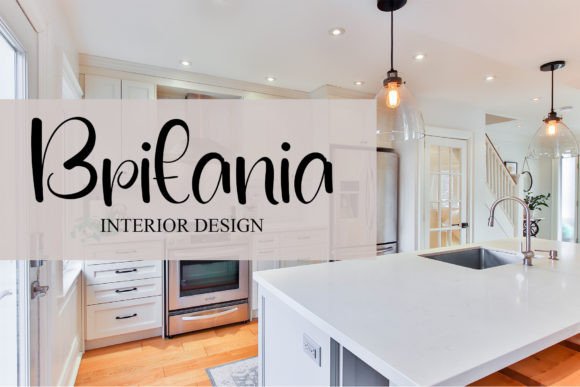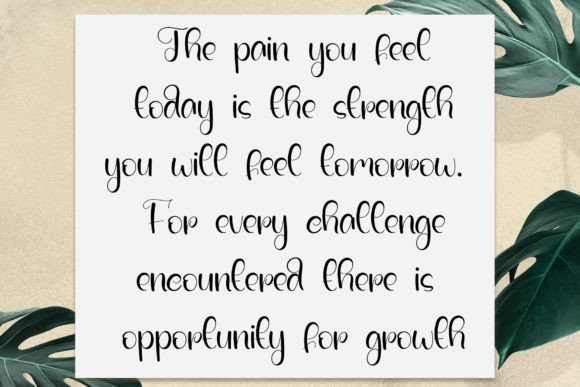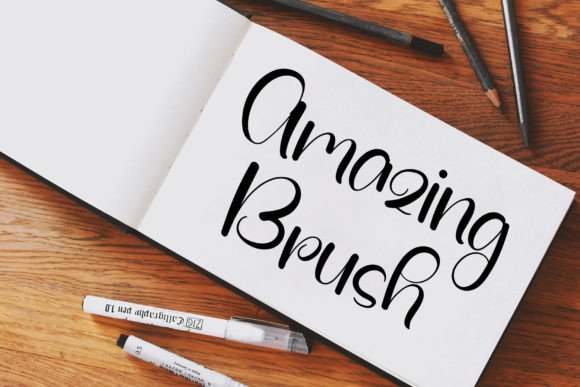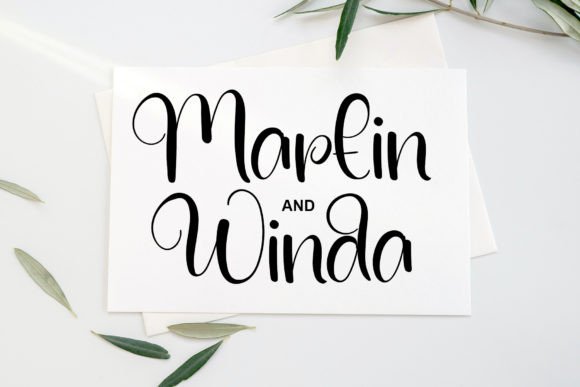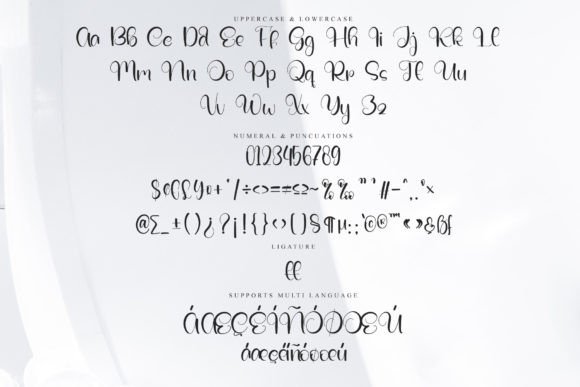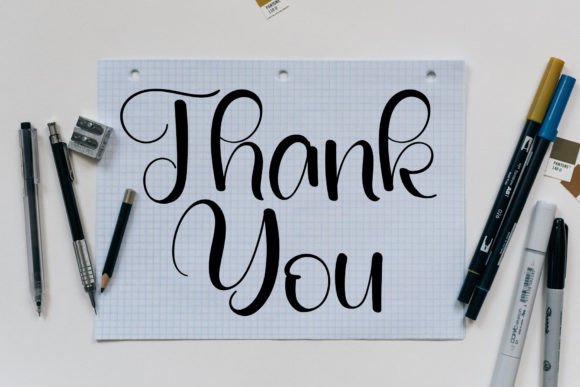
The Perfect Font for Your Creative Projects
Have you ever found yourself staring at a blank page, struggling to bring your creative vision to life? We’ve all been there – the blank page staring back at us, taunting us with its emptiness. But then, it hits you. A spark of inspiration, a dash of creativity, and suddenly, the possibilities are endless.
That’s where the Homework Font comes in – a beautiful display font designed to add a touch of elegance to your magazine layouts, craft projects, and more. With its lovely, handwritten feel, this font is perfect for adding a personal touch to your designs. Whether you’re a seasoned designer or a crafty enthusiast, the Homework Font is a valuable addition to your font library, offering endless possibilities for creative expression.
Key Features of Homework Font
- Font Family: Homework Font is a unique, handwritten font designed for educational purposes, ideal for creating engaging and approachable materials.
- Size and Resolution: Designed to be highly legible at various sizes and resolutions, suitable for use in documents, presentations, and digital displays.
- Unique Characteristics: Features a distinctive, cursive handwriting style with a mix of uppercase and lowercase letters, making it perfect for adding a personal touch to educational materials.
Homework Font Review
I recently had the chance to dive into the “Homework Font” and here’s my honest take on it.✨
- Easy-to-read design: The font is indeed easy on the eyes, making it perfect for long reading sessions or educational materials.
- Classic feel: It has a timeless, classic feel that’s reminiscent of traditional textbooks and academic materials.
- Great for body text: The font performs well in body text, making it ideal for large blocks of text.
- Not ideal for headlines: While the font works well for body text, it might not be the best choice for headlines or titles.
- Lacks personality: Compared to other fonts, Homework Font feels a bit too generic and lacks a unique personality.
- May not be suitable for creative projects: Its classic design might make it too traditional for modern, creative projects.
Overall, Homework Font is a solid choice for educational materials and body text, but it might not be the best fit for projects that require a bit more flair or personality. It’s a dependable font that gets the job done, but it might not stand out from the crowd.
Homework Font: A Practical Application Guide
Tips for Getting the Most Out of the Homework Font
To get the most out of the Homework Font, use it in combination with other educational elements, such as graphics and charts.
Experiment with different font sizes and styles to create a visually appealing design.
The Homework Font is commonly used in educational materials, such as:
Assignments and worksheets
Reports and research papers
PowerPoint presentations and slides
Word documents and essays
Alternatives to Homework Font for Designers
Lato is a sans-serif font designed by Łukasz Dziedzic. It is a versatile font suitable for various design projects, including logos, headings, and body text. Lato is a great alternative to Homework Font for its clean and modern appearance, making it perfect for digital design, branding, and editorial content.
Comparison to Homework Font: Lato is more geometric and modern, while Homework Font has a more rounded and elegant feel. Lato is also more versatile and suitable for a wider range of design projects.
Avenir Next Font
Avenir Next is a sans-serif font designed by Adrian Frutiger. It is a highly legible font suitable for digital and print design. Avenir Next is a great alternative to Homework Font for its clean and modern appearance, making it perfect for branding, logos, and body text.
Comparison to Homework Font: Avenir Next is more geometric and modern, while Homework Font has a more rounded and elegant feel. Avenir Next is also more suitable for digital design and has better legibility at small font sizes.